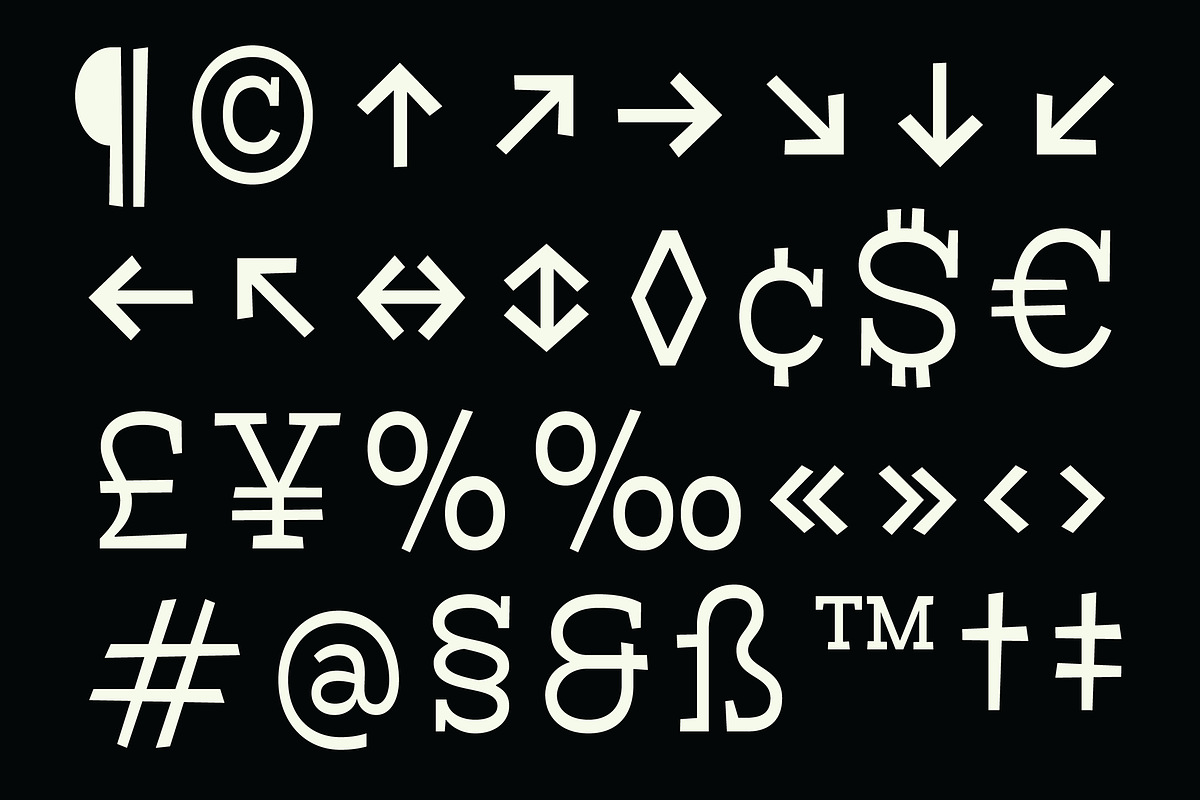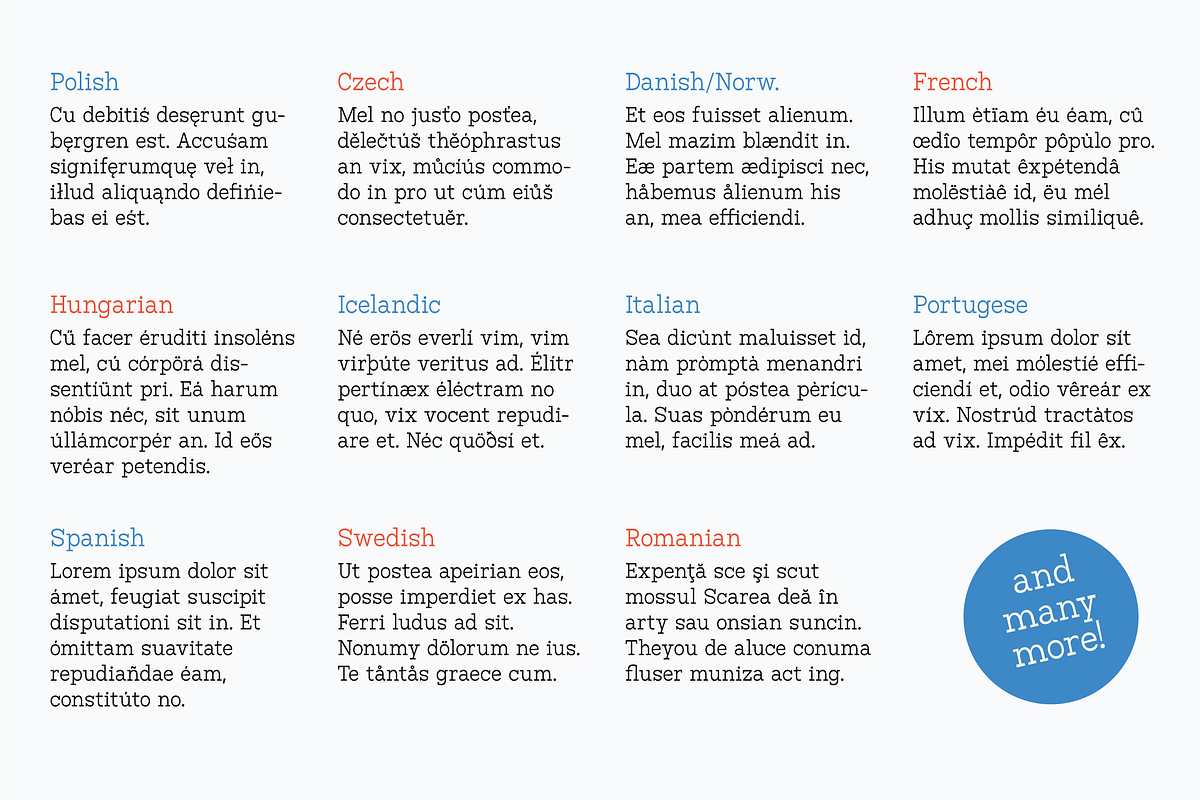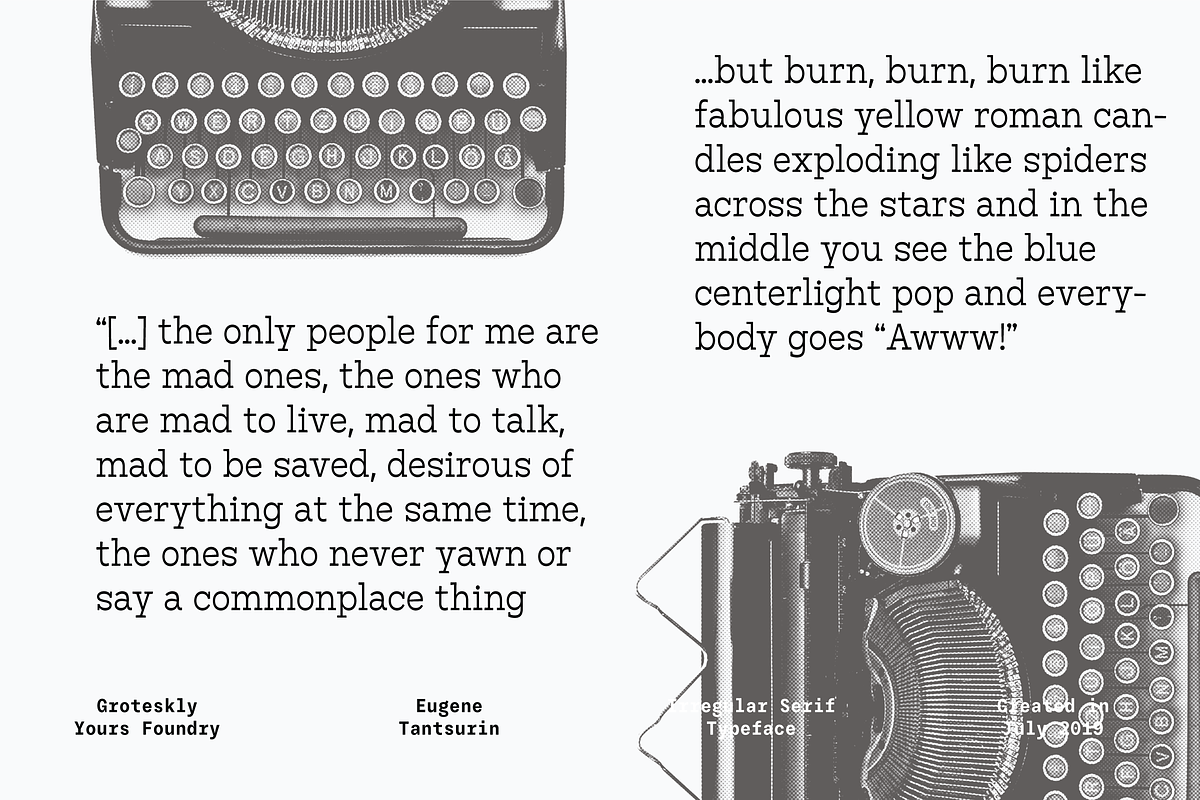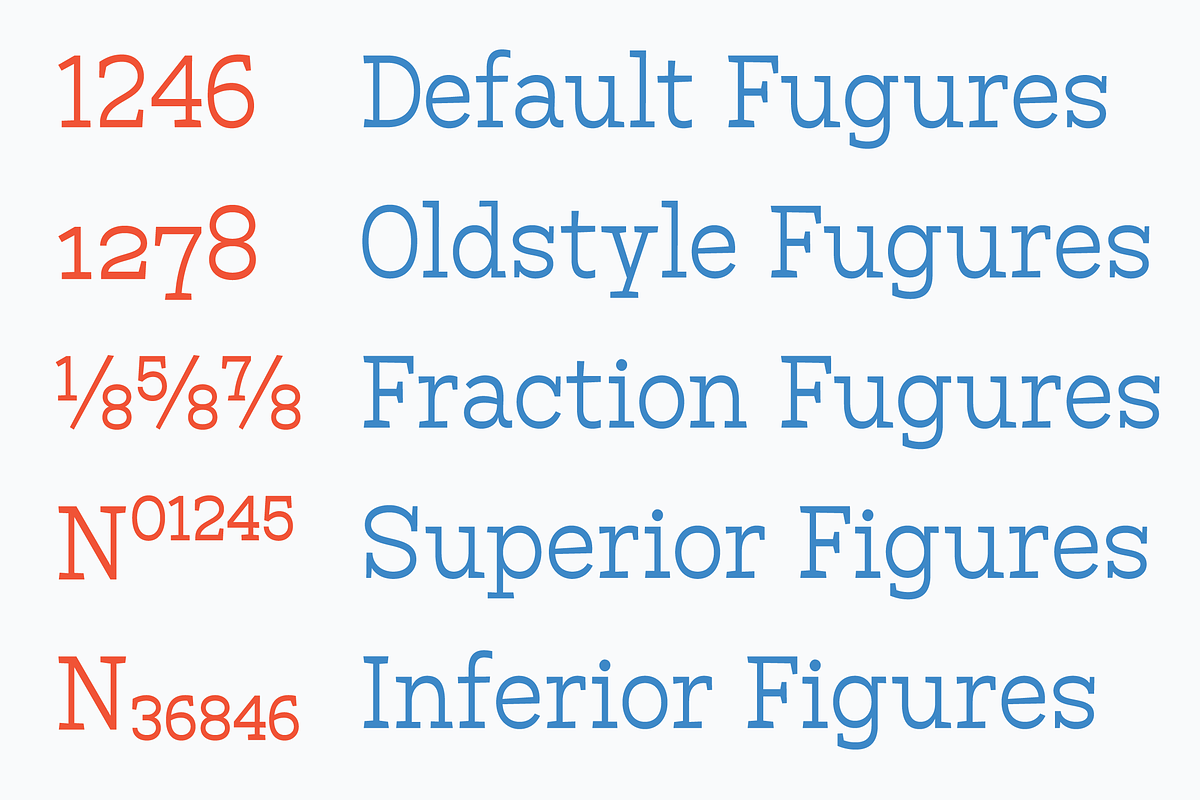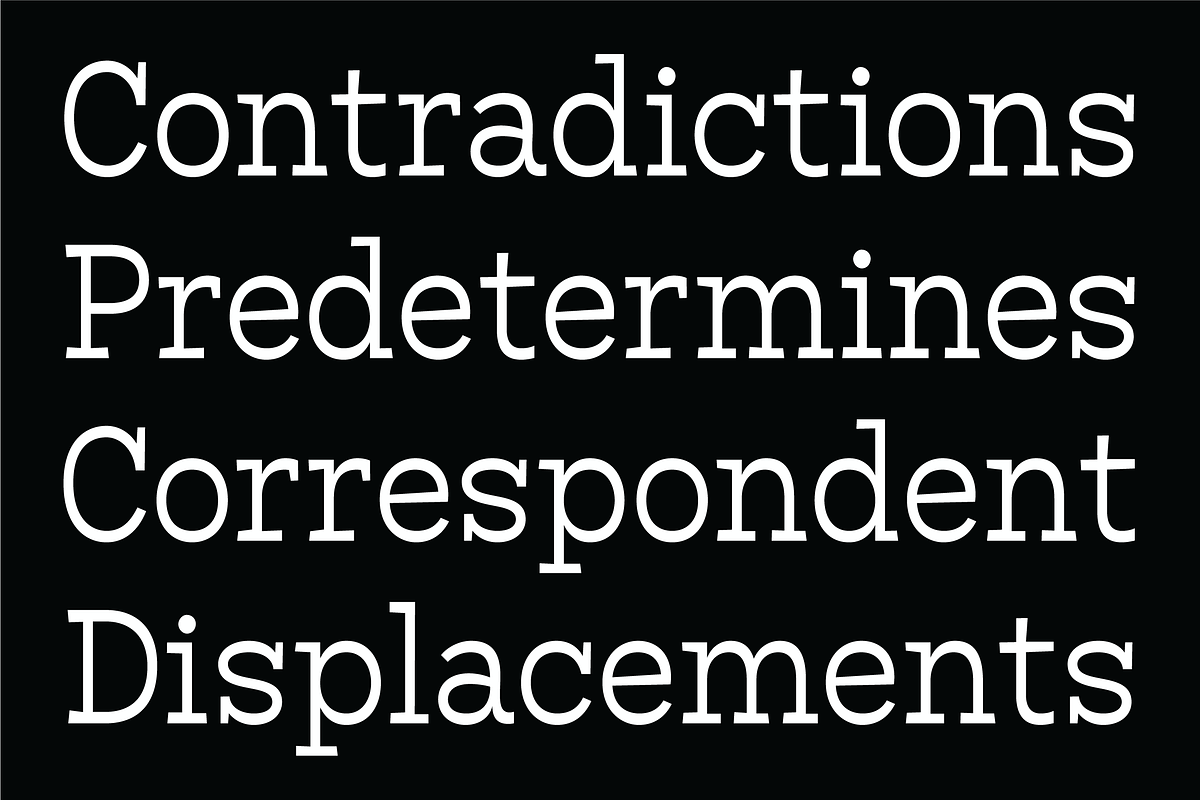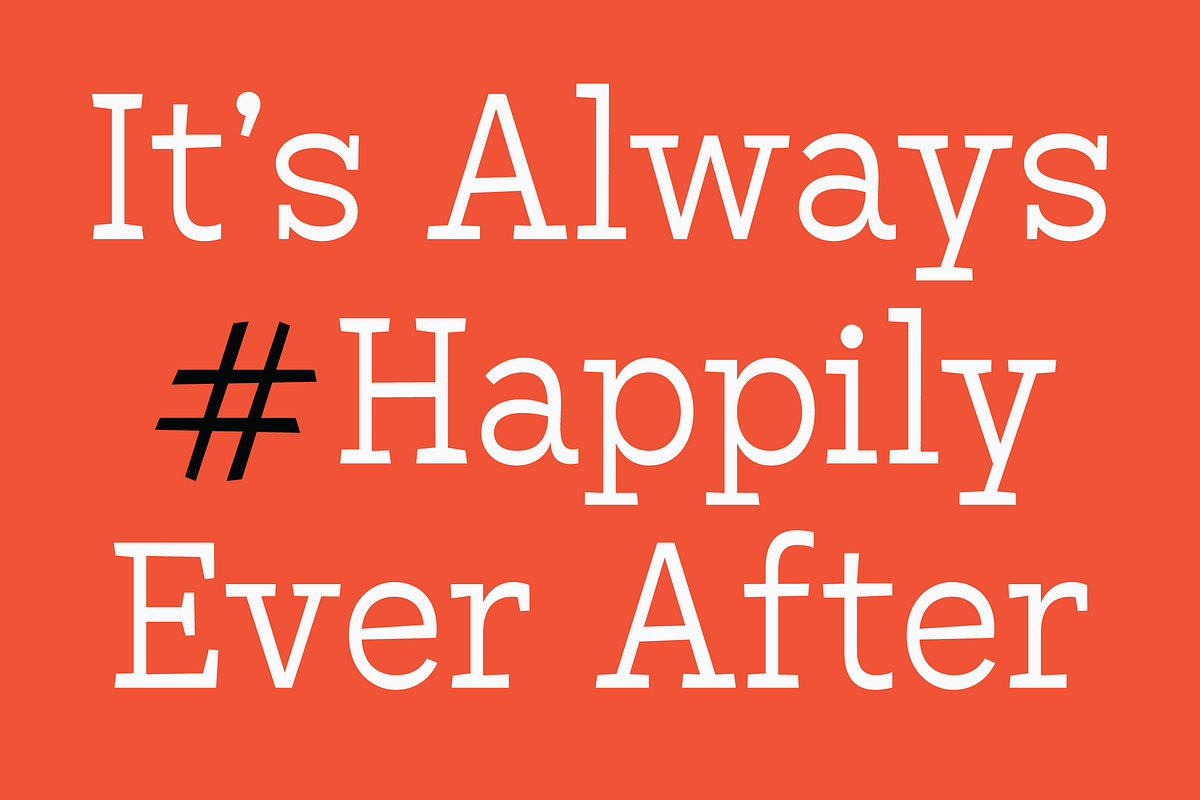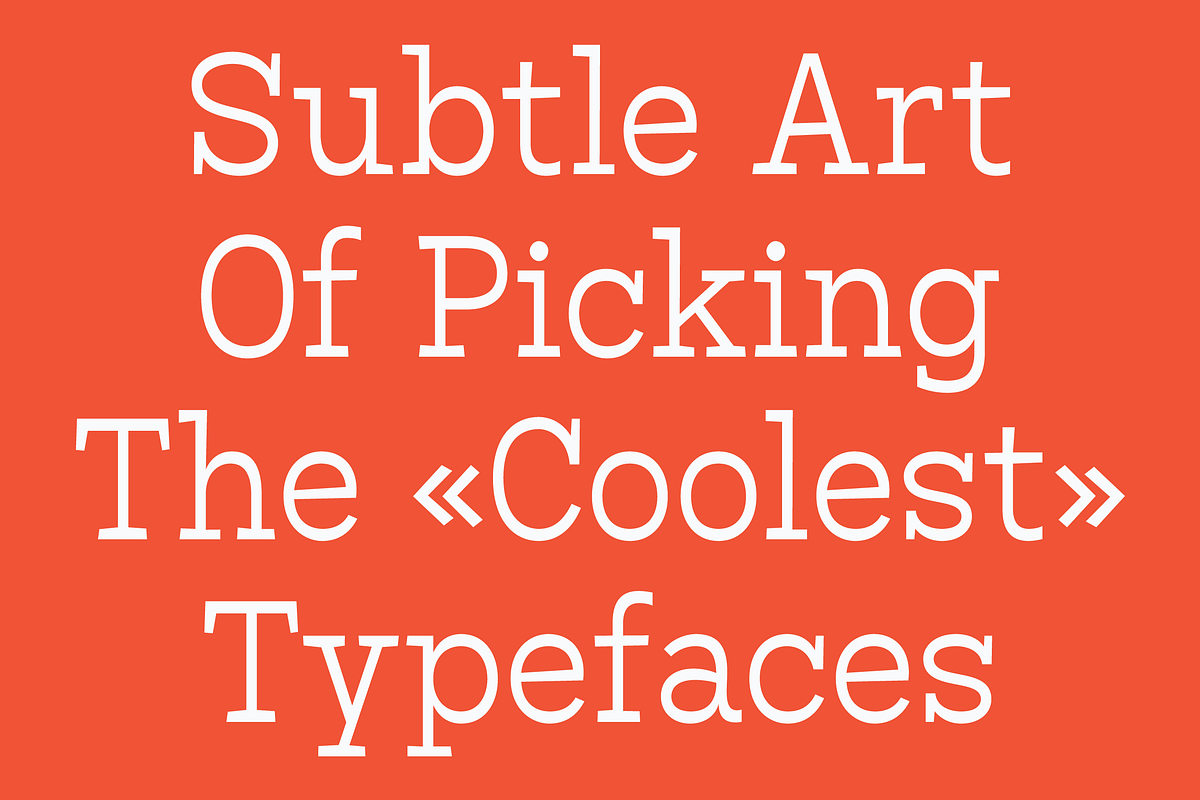
Bardamu – Happy & Weird Slab Serif
Bardamu Serif Font began as a little experiment but soon outgrew its project. While it's not as serious and classic as our other fonts, Bardamu does a good job of standing out. Letters are subtly weird, and it shows. If you want your design to be a little happier than it already looks, a serif font like Bardamu is what you need. Bardamu comes with a second stylistic set, which means you have twice as many letter shapes to choose from. And... it's equipped with all the features that grown-up fonts like so much: ton of OpenType, old style figures, extra symbols, multilingual support for most Latin-based languages, ligatures, and extended punctuation.
What's included in Bardamu – Happy & Weird Slab Serif?
• Uppercase
• Lowercase
• Second Stylistic Alternates Set
• Ligatures (standard and discretionary)
• Multilingual Support (˘`´ˆ¨ etc.) for both Caps and Lowercase
• Numerals (Regular, Oldstyle, Small Figures, Fractions)
• Special Symbols
• 380 glyphs in total.